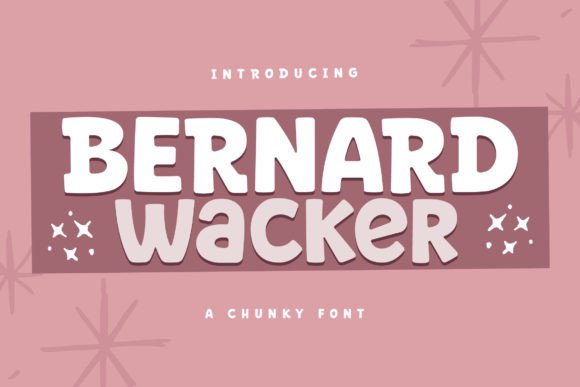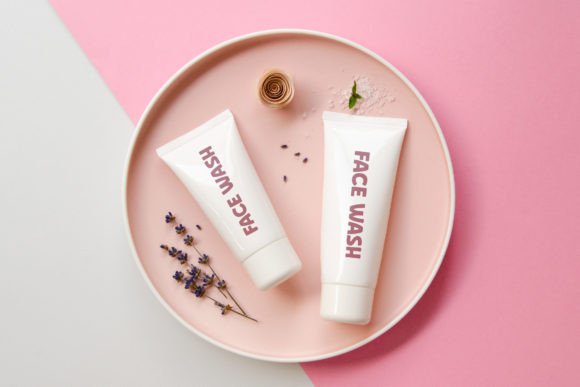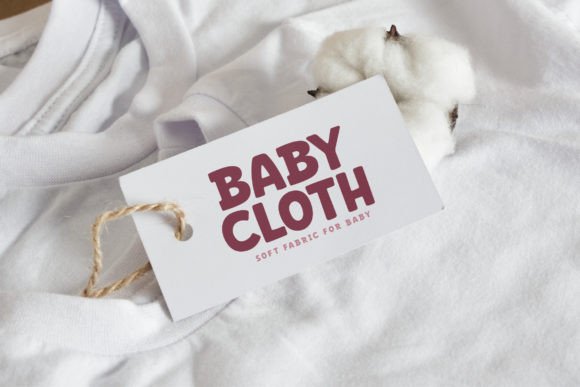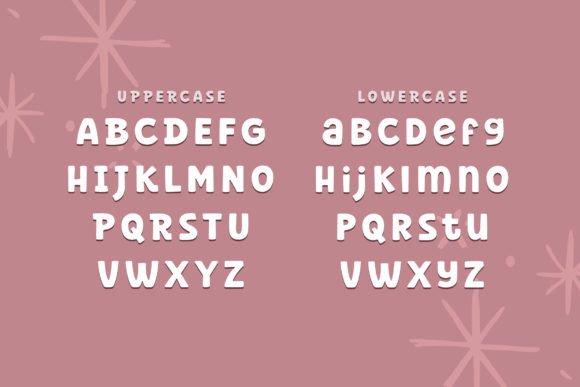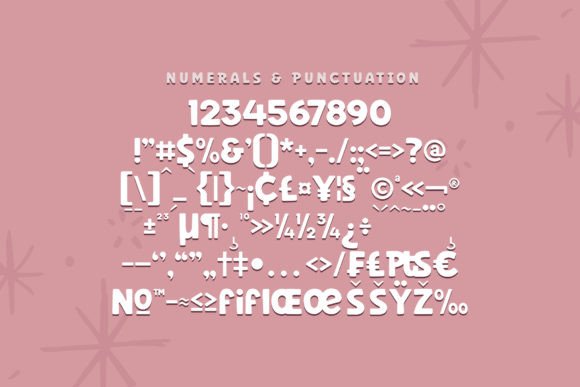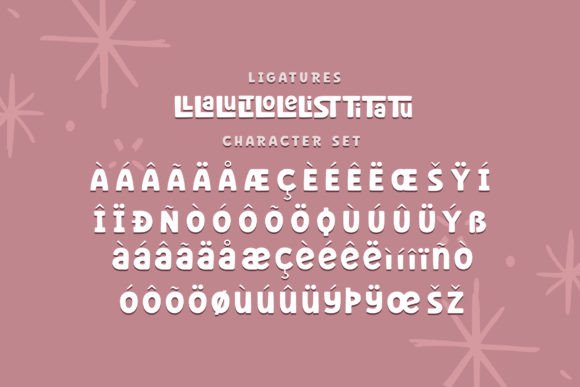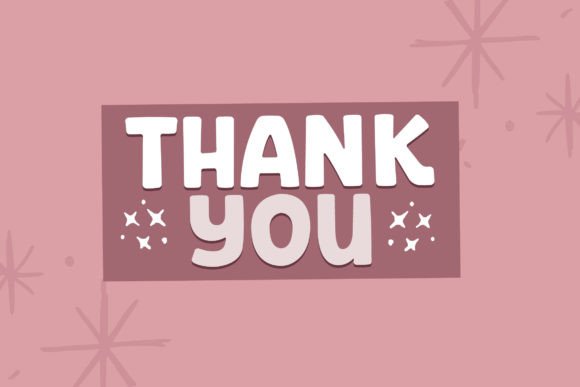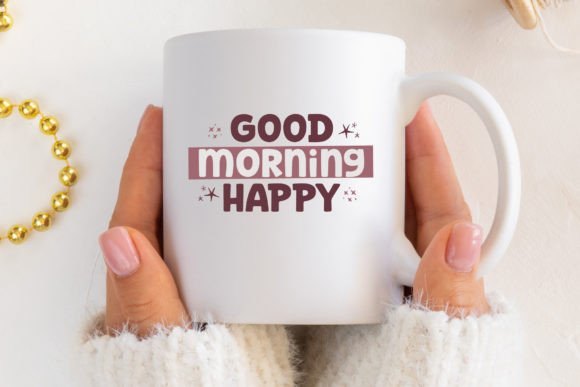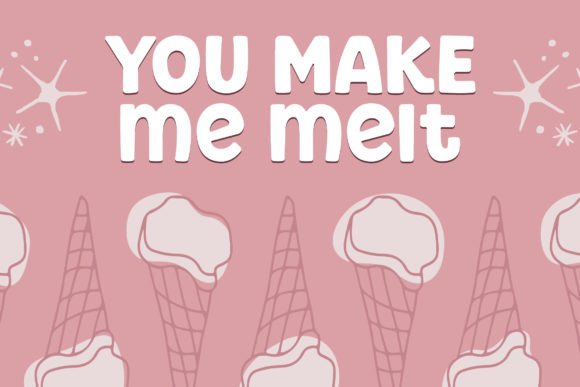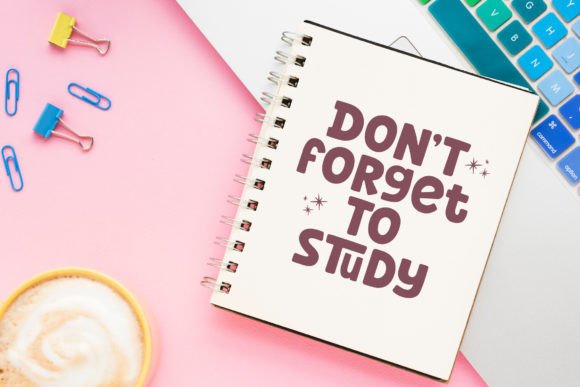
Bernard Wacker
Bernard Wacker: A Modern and Classic Slab Serif Font
Bernard Wacker is a modern and classic slab serif font that combines unique and fancy design elements. This elegant typeface brings luxury styling to various applications, from fashion brands to movie titles.
Key Features of Bernard Wacker
• Modern Design: Offers contemporary appeal with classic elements.
• Elegant Style: Brings luxury and sophistication to designs.
• Unique Character: Features distinctive and fancy letterforms.
• Versatile Application: Adapts well to numerous design contexts.
Best Uses for Bernard Wacker
Thanks to its elegant characteristics, Bernard Wacker works especially well for:
Design Tips
When using Bernard Wacker in your designs, keep these tips in mind:
• Try it for headlines or display text to showcase its luxury style.
• Use different sizes to highlight its unique features.
• Let its classic character enhance elegant projects.
• Take advantage of its fancy appeal for high-end designs.
Wrapping Up
To sum up, Bernard Wacker is an excellent choice for designers seeking a modern and classic slab serif font. Its unique characteristics make it perfect for projects that need an elegant touch. Whether you’re creating luxury logos, designing fashion brands, or developing movie titles, Bernard Wacker offers the perfect blend of modernity and classic sophistication.
Furthermore, Bernard Wacker’s distinctive design allows it to shine in contexts where both elegance and uniqueness are key. For instance, from magazine designs to creative lettering, this font can elevate your projects with its fancy style. Also, its modern yet classic appearance works particularly well in designs that aim to make a luxurious impact.
In conclusion, Bernard Wacker truly captures the essence of elegant typography in slab serif design. Its versatility across different applications shows how well it can serve various creative needs. Therefore, for those wanting to add a touch of luxury to their work, Bernard Wacker can enhance any design with its distinctive style. Ultimately, it’s perfect for designers aiming to make an elegant, sophisticated impact across a wide range of creative projects.